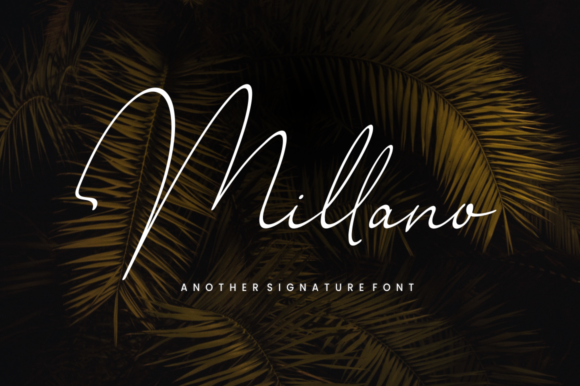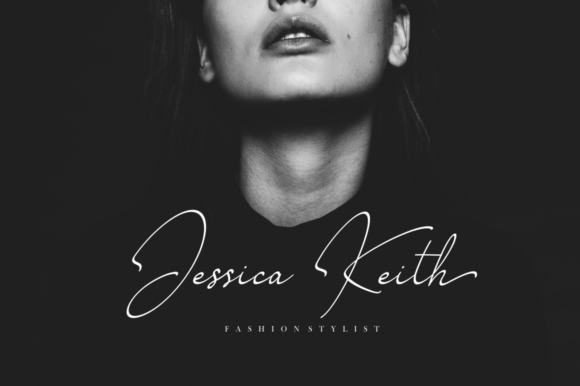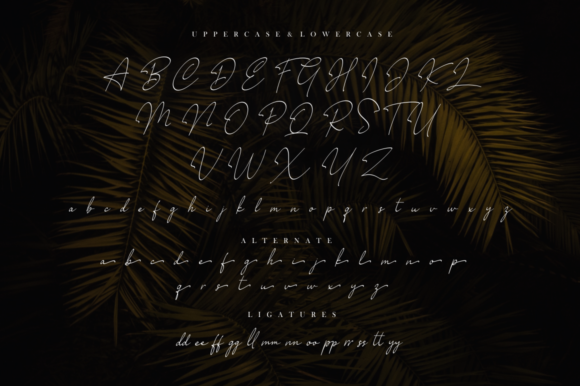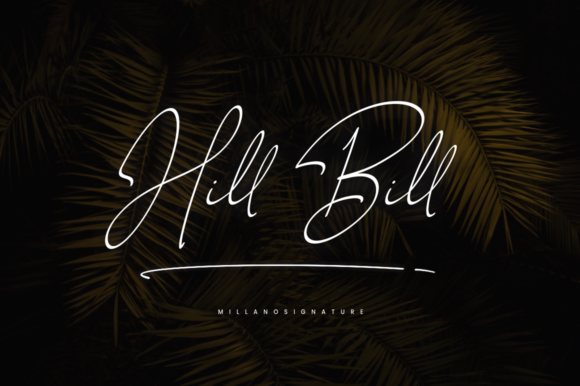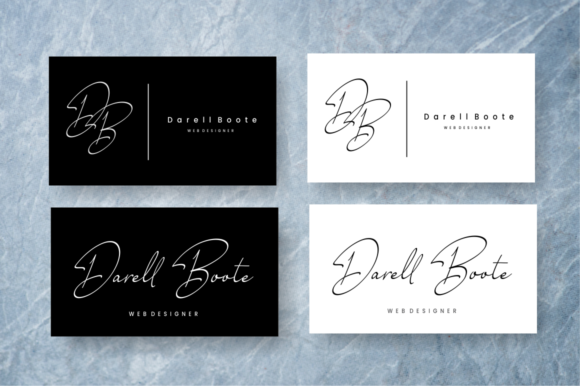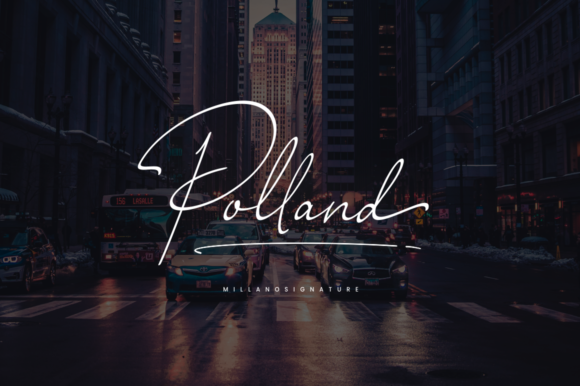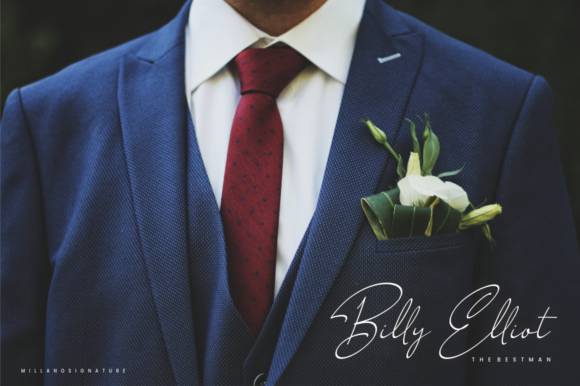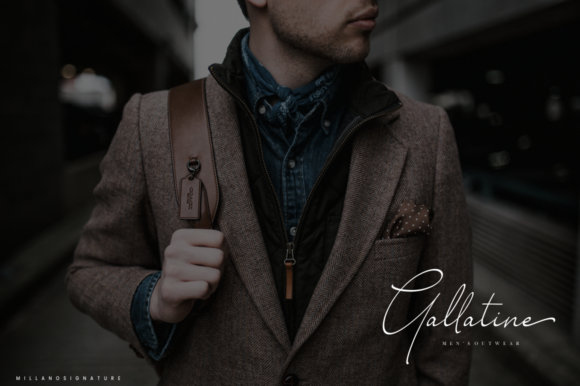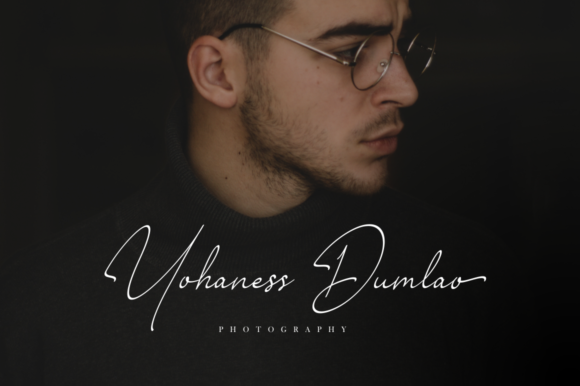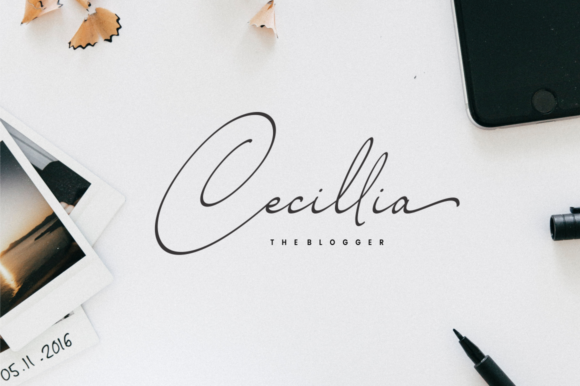
Millano Font
About Millano Font
The Millano is a modern signature font. It’s perfect for personal branding or any other design that want to add an elegant, personal touch.